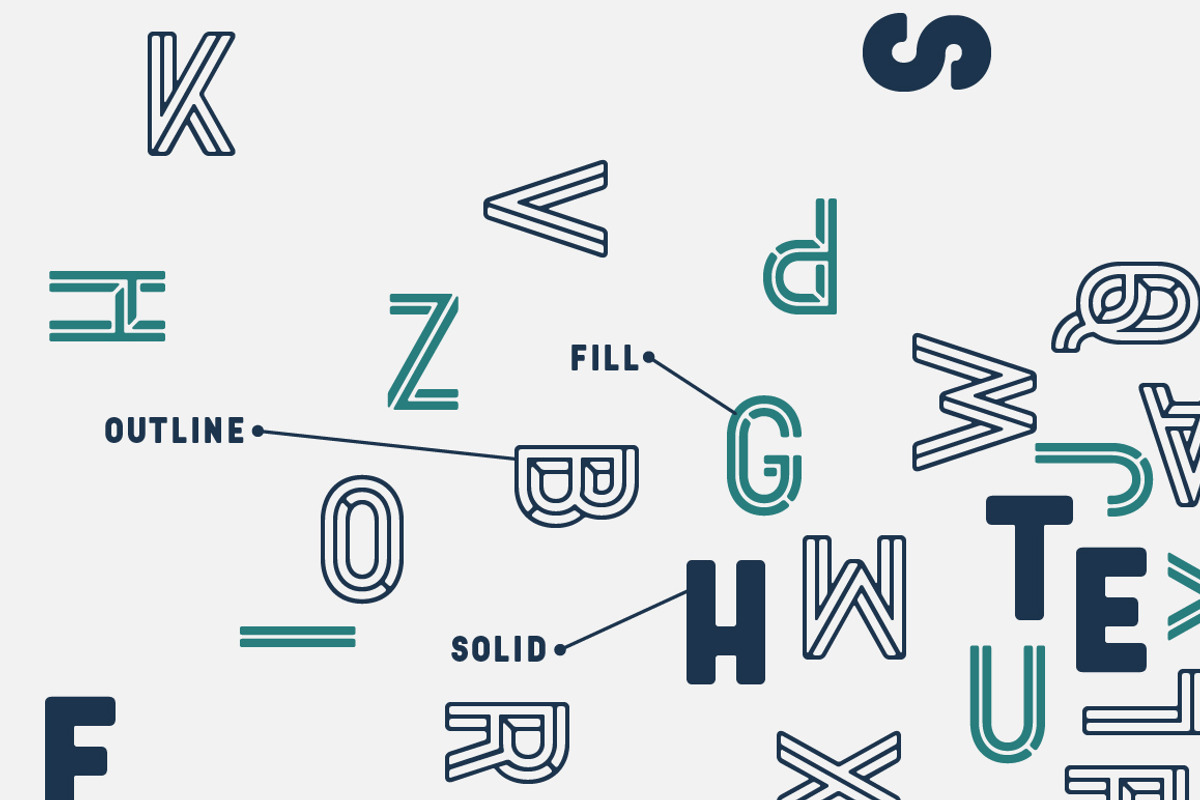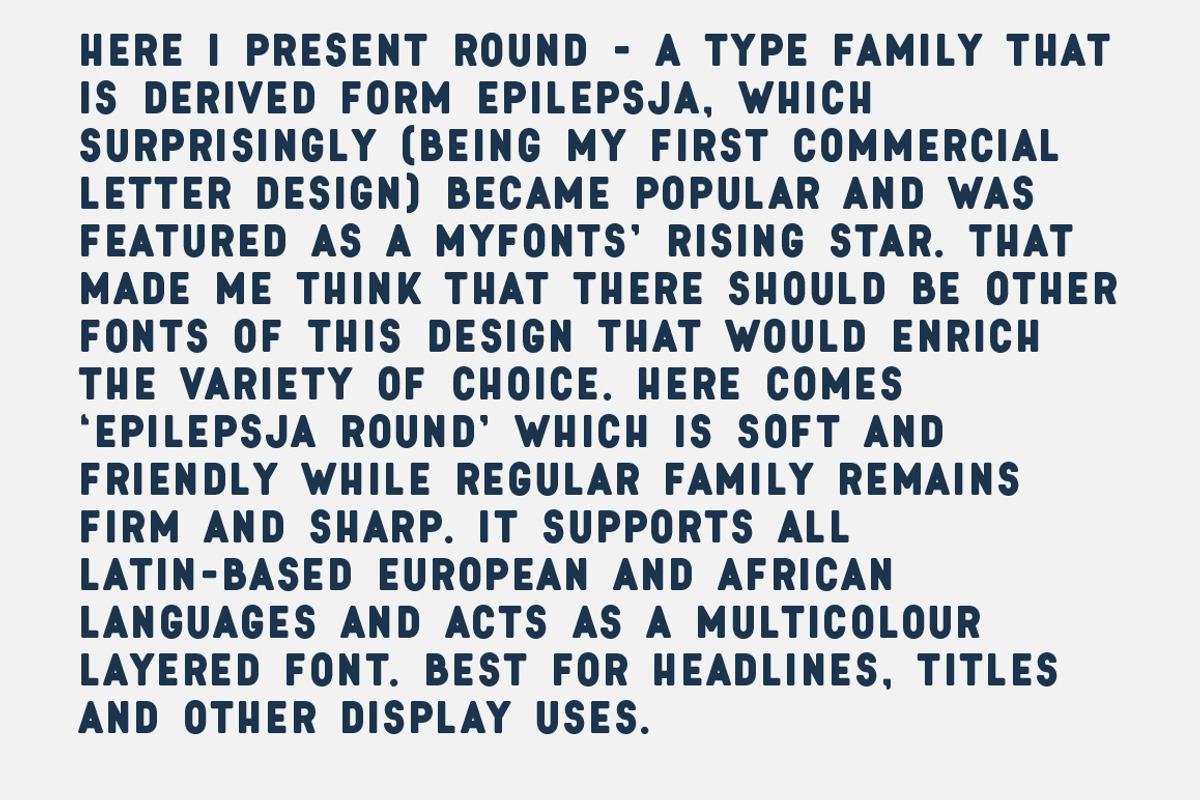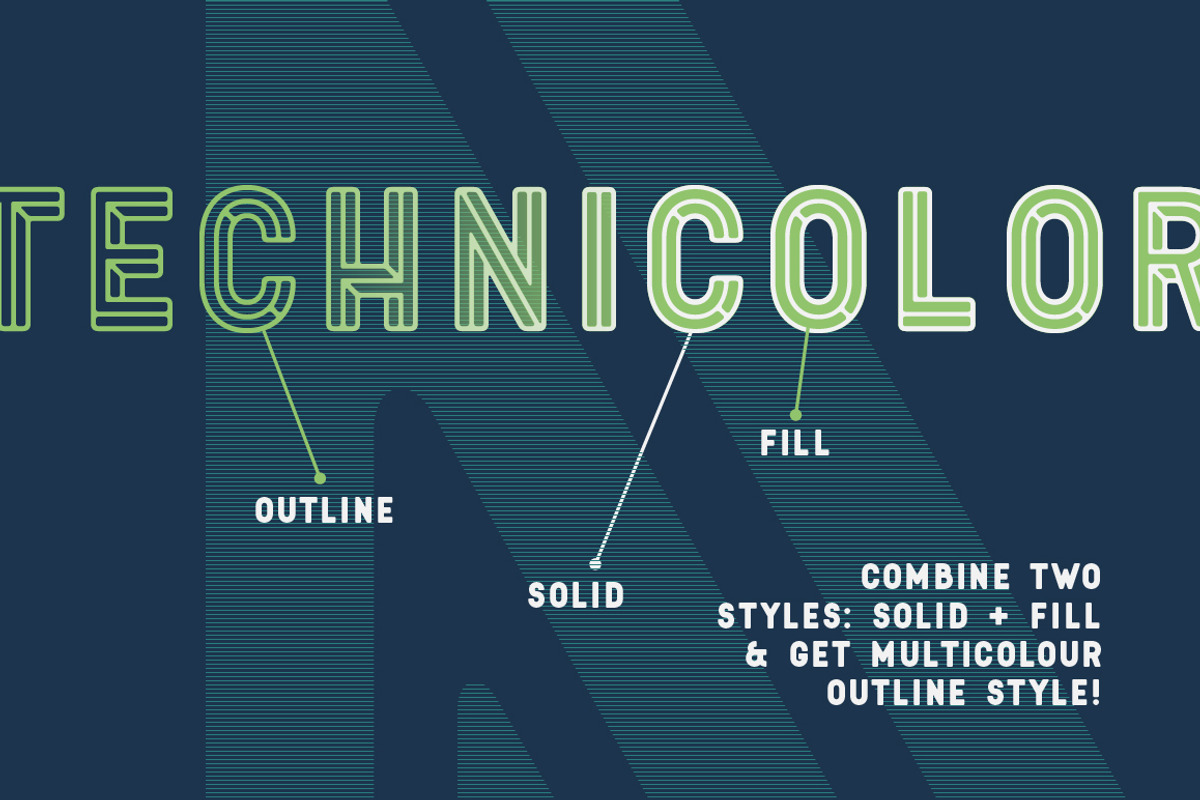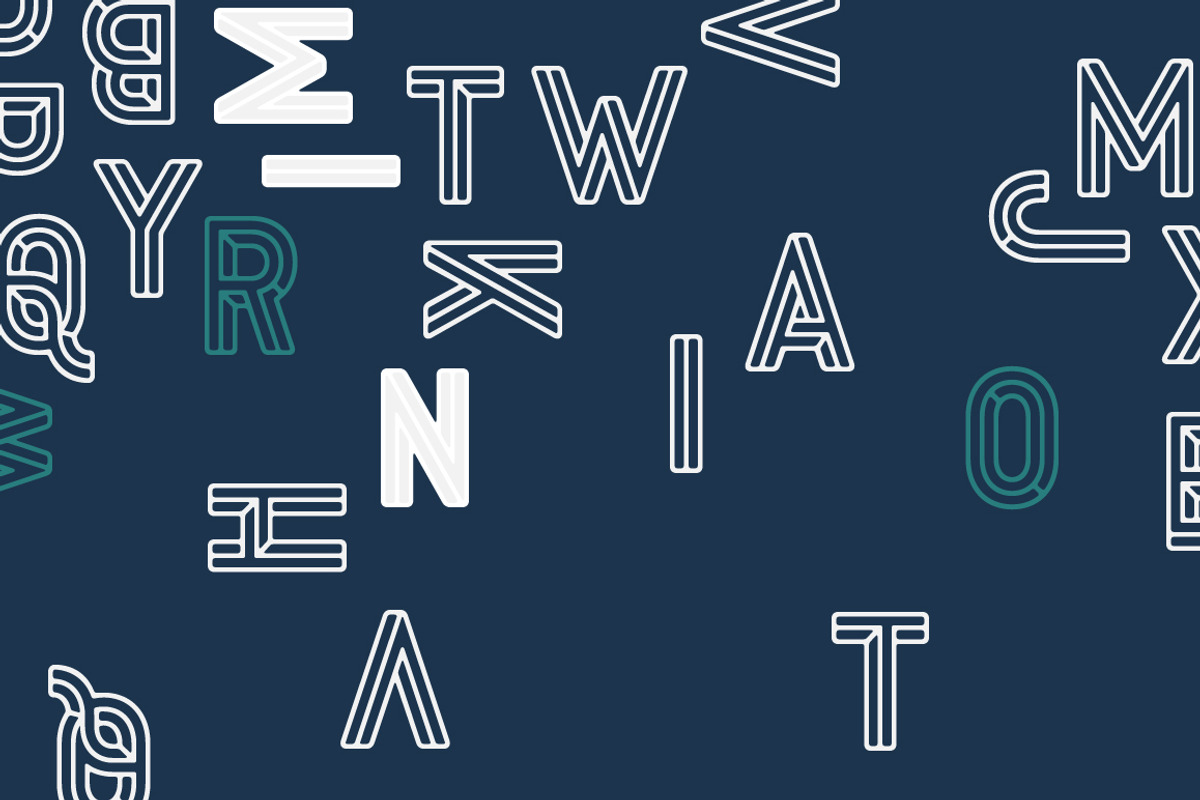
Epilepsja Round color type family
Epilepsja Round color type family by FONT-Bud is a font selected for branding, posters, packaging, typography.
- Epilepsja Round Fill
- Epilepsja Round Outline
- Epilepsja Round Solid
Why Epilepsja Round color type family is worth a look
Epilepsja Round color type family by FONT-Bud fits naturally into Branding, posters, packaging, typography.